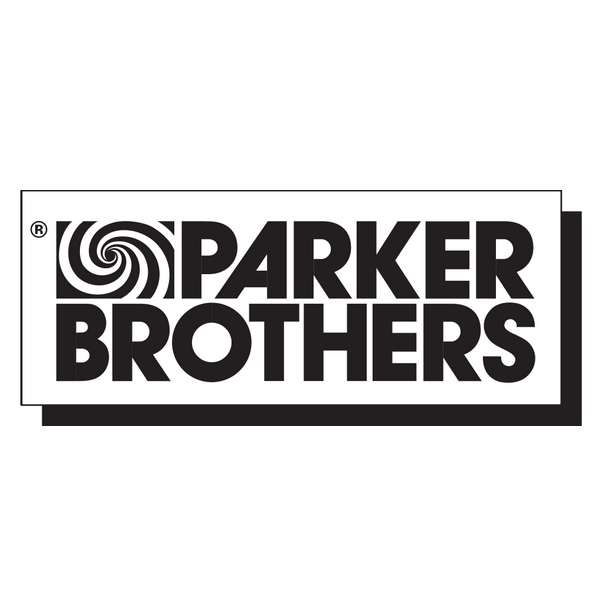
Parker Brothers Font
Company & ConsolesParker Brothers is a game company founded in 1883, known for popular board games such as Monopoly, Risk, and Clue. It was acquired by Hasbro in 1991.
The company's logo likely features the ITC Avant Garde Gothic Bold font, with the letter "A" in an alternate form included in the character set. The ITC Avant Garde Gothic family is designed based on the Avant Garde Magazine logo by Herb Lubalin and Tom Carnase. You can view more information and download the font here.